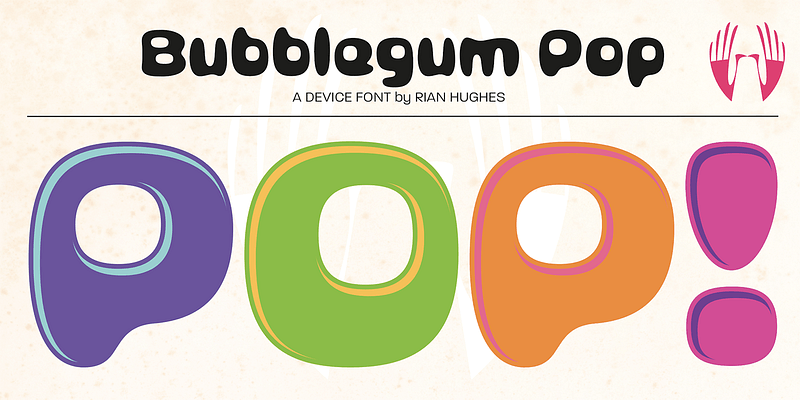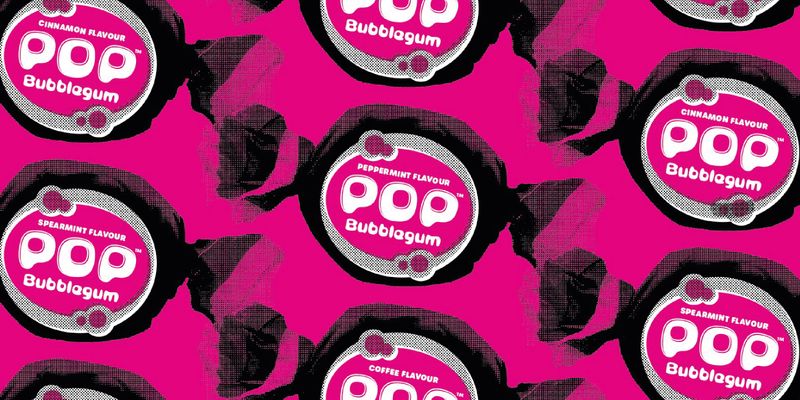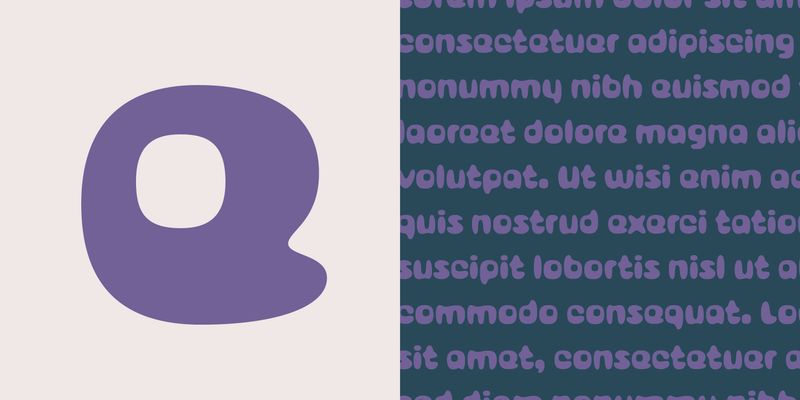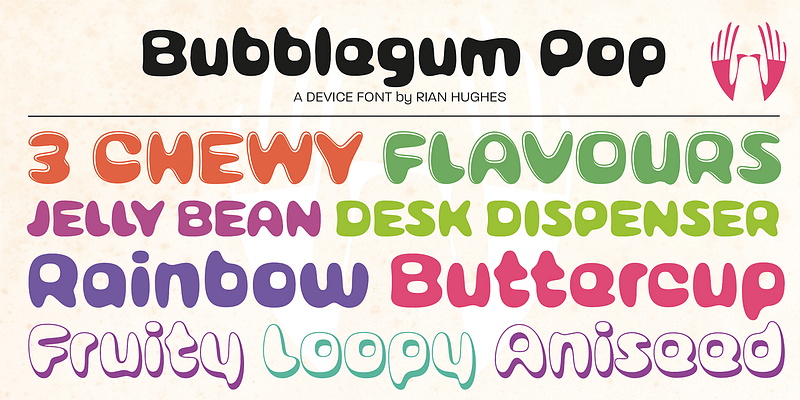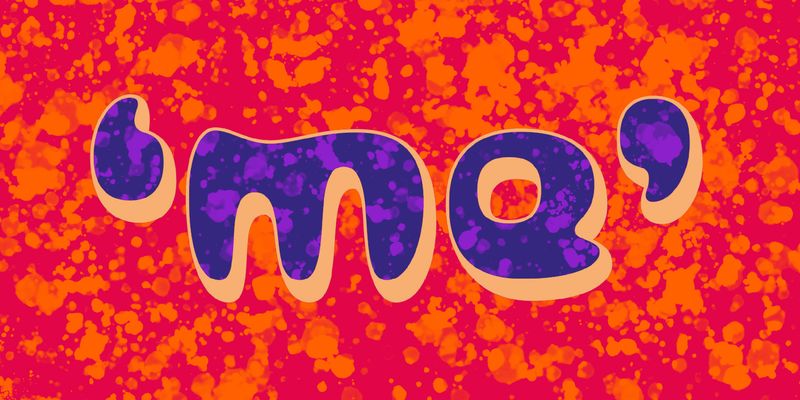
A playful balloon font that subverts traditional weight distribution. Available in shadow and highlight variants, and perfect for packaging, comics, and toys.
Type, design and imagery by English illustrator and typographer Rian Hughes.